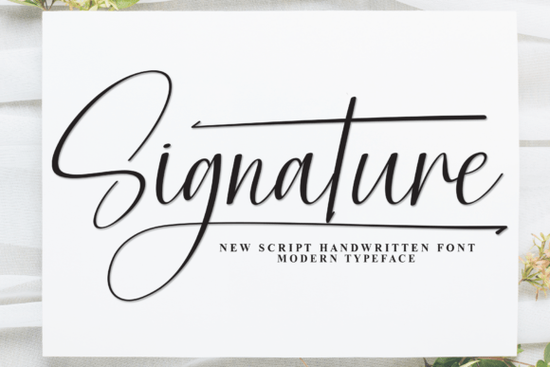
If you're looking for a script font that blends elegance with modern simplicity, the Signature Font might be exactly what your next project needs. Designed to mimic the fluid motion of a natural pen stroke, it offers a clean, professional aesthetic that works beautifully across branding, packaging, and digital assets. Whether you’re a small business owner crafting client proposals or a designer working on luxury wedding invitations, this typeface adds a subtle touch of refinement without overwhelming your layout.
Why choose a signature-style font for branding?
Handwritten-style fonts like Signature Font communicate personality and authenticity qualities that resonate deeply with today’s audiences. Unlike rigid sans-serifs or overly ornate scripts, a well-designed signature font strikes a balance: it feels personal but remains legible and polished. This makes it especially useful for:
- Business cards and letterheads
- High-end product packaging
- Digital signatures in client contracts
- Photography watermarks that don’t distract
- Editorial headlines in lifestyle or fashion layouts
Because of its long, horizontal strokes and minimal flourishes, Signature Font reads as both contemporary and timeless ideal for brands that want to appear established yet fresh.
How does it compare to other script fonts?
Not all script fonts are created equal. Some lean too casual (Smoothie Delights Font, for example, has a playful bounce perfect for food or kids’ products), while others feel overly decorative. Signature Font sits firmly in the “refined minimalism” category think less calligraphy, more executive autograph.
If you enjoy the organic flow of Wonderful Handmade Font but need something cleaner for corporate use, Signature Font offers a more restrained alternative. Similarly, while Your Dreams Font leans romantic and airy, Signature Font keeps things grounded with confident, even strokes that hold up well at larger sizes.
What makes it practical for real-world use?
Beyond aesthetics, Signature Font includes PUA (Private Use Area) encoding, which means all special characters, ligatures, and stylistic alternates are accessible directly through standard design software no extra plugins or glyph panels required. This is a huge time-saver when you’re on a deadline or working with clients who need quick turnarounds.
It also pairs effortlessly with other typefaces. Try combining it with a bold, all-caps serif (like Playfair Display or Cormorant) for a high-fashion contrast that feels editorial and intentional. For minimalist brands, pairing it with a neutral sans-serif like Montserrat or Lato creates a balanced hierarchy: the signature font draws attention as a headline, while the supporting text stays crisp and readable.
Who should use this font?
This font shines in contexts where trust, exclusivity, and sophistication matter:
- Print-on-demand sellers creating custom stationery, mugs, or tote bags with personalized messages.
- Freelance designers building brand identities for boutique salons, wellness coaches, or premium skincare lines.
- Small business owners designing their own invoices, email signatures, or social media graphics.
- Crafters making wedding signage, gift tags, or handmade product labels who want a polished finish.
It’s not ideal for body text or situations requiring maximum readability (like legal disclaimers or app interfaces), but for accents, headers, and short phrases? It delivers consistent results.
Getting started with Signature Font
Pro tip: Use it sparingly. A single line of Signature Font as a logo tagline or event name often has more impact than using it throughout an entire layout. Let it be the accent, not the background noise.
Before you go: If you’re exploring handwritten options, also check out other signature-style fonts in the same category they might offer slight variations in slant, weight, or terminal shape that better suit your specific project.
Quick checklist before using Signature Font:
- ✅ Confirm your project calls for elegance over playfulness
- ✅ Test readability at your intended size (avoid tiny uses)
- ✅ Pair with a complementary neutral or bold serif
- ✅ Use PUA characters to access full stylistic range
- ✅ Limit usage to headlines, logos, or short phrases